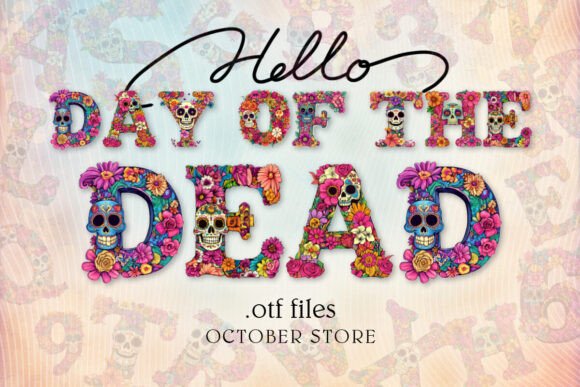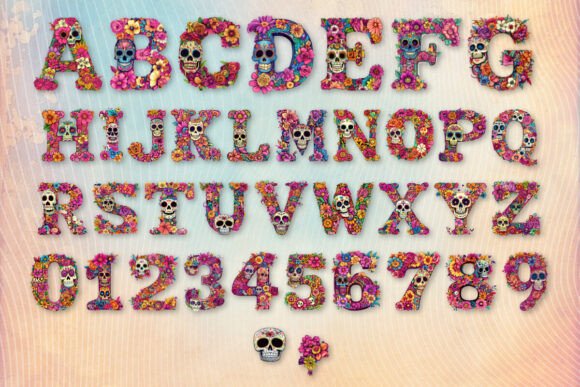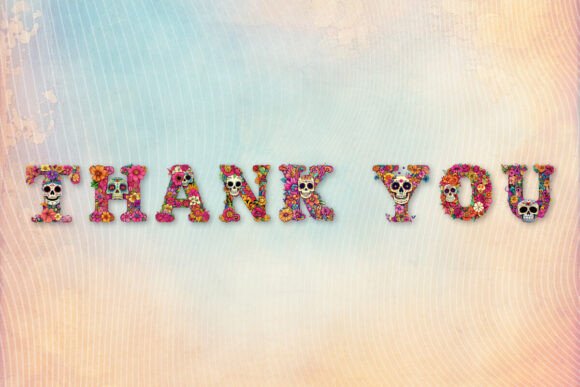
Day of the Dead Font
Introducing the Mexican Day of the Dead Alphabet Font – a tribute to one of Mexico’s most vibrant and cherished holidays. Overflowing with zest, this font embodies the spirit of the Day of the Dead celebrations in each of its 26 letters, 10 numerals, and 2 unique special characters. Each stroke exudes a lively and cheerful touch, accentuated by a riot of colors true to the festival’s ethos. The end result is a typeface that’s unforgettably energetic and radiant, perfect for bringing a spark of Mexico’s festive heritage to your design projects. Bursting with culture, tradition, and joy, this font is more than an alphabet; it’s a celebration.